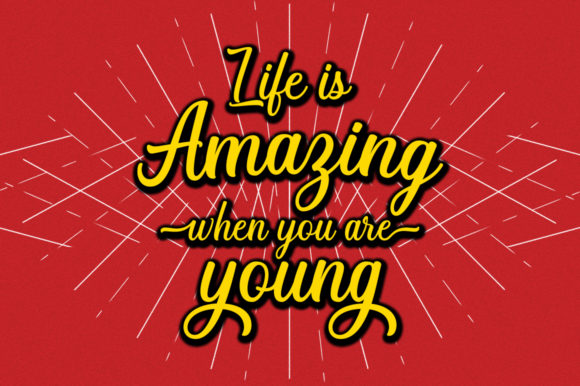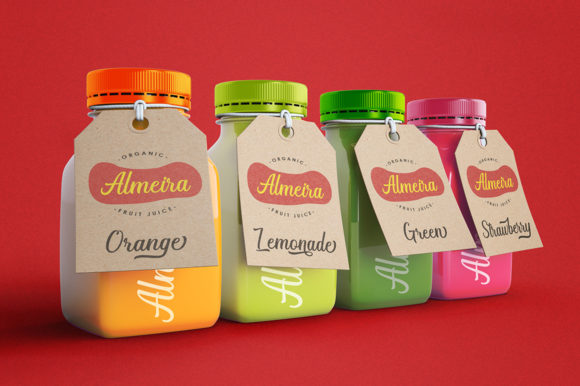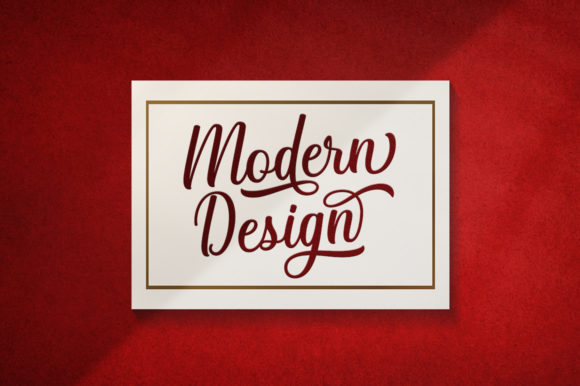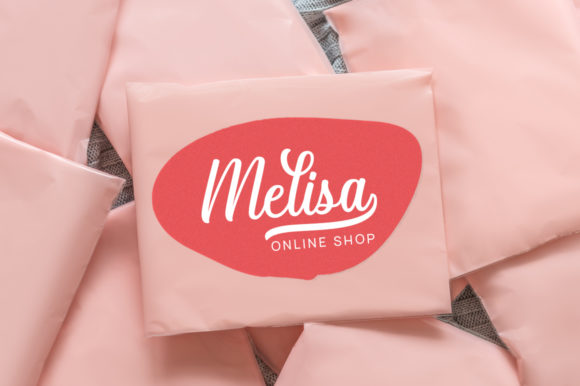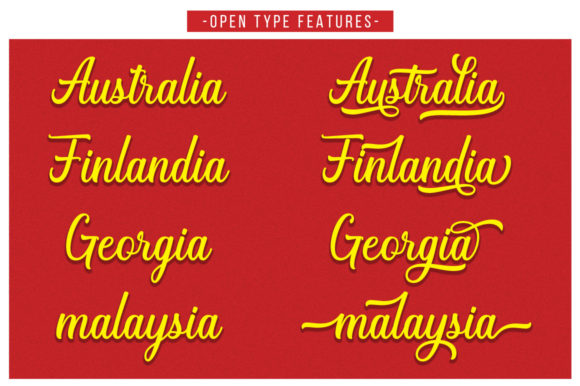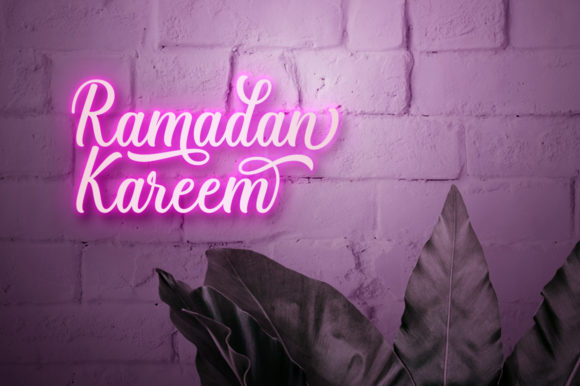
Introducing Greater Amberjack Font: Elevate Your Designs with Elegance and Friendliness
In the world of typography, a font can make or break a design project. If you’re a designer, crafty enthusiast, or simply someone who appreciates the art of beautiful lettering, you’re in luck! Greater Amberjack Font is a modern handwritten font that is taking the design world by storm. With its elegant look and friendly feel, this font is perfect for a wide range of projects, from branding and headings to wedding designs, invitations, signatures, logos, labels, and so much more!
The Characteristics of Greater Amberjack Font
So, what makes Greater Amberjack Font so special? For starters, its modern handwritten style gives it a fresh and contemporary look that’s perfect for designers who want to stay on-trend. The elegant feel of this font makes it ideal for projects that require a touch of sophistication, while its friendly vibe ensures that it remains approachable and accessible.
Whether you’re working on a luxury brand identity, a wedding invitation, or a personal craft project, Greater Amberjack Font is sure to elevate your design to the highest level. Its versatility is unmatched, and its unique character set ensures that your designs will stand out from the crowd.
Uses for Greater Amberjack Font
Greater Amberjack Font is a true workhorse, and its uses are endless. Here are just a few ideas to get you started:
- Branding: Create a lasting impression with a custom logo or brand identity that showcases your unique personality and style.
- Wedding Designs: Make your special day even more unforgettable with beautiful wedding invitations, programs, and decorations featuring Greater Amberjack Font.
- Headings and Titles: Add a touch of elegance to your blog posts, articles, and social media graphics with eye-catching headings and titles.
- Invitations and Cards: Create personalized invitations, greeting cards, and stationery that showcase your creativity and thoughtfulness.
- Signatures and Logos: Develop a unique signature style or logo that reflects your personality and brand identity.
- Labels and Packaging: Stand out on store shelves or online with custom labels and packaging that feature Greater Amberjack Font.
Why Choose Greater Amberjack Font?
With so many fonts to choose from, why should you choose Greater Amberjack Font? Here are just a few reasons:
- Unique and Modern: Greater Amberjack Font is a one-of-a-kind font that will set your designs apart from the crowd.
- Elegant and Friendly: This font combines sophistication with approachability, making it perfect for a wide range of projects.
- High-Quality: Greater Amberjack Font is designed with precision and attention to detail, ensuring that it looks amazing in any context.
If you’re looking for a font that will elevate your designs to the highest level, look no further than Greater Amberjack Font. With its modern handwritten style, elegant look, and friendly feel, this font is perfect for designers, crafty enthusiasts, and anyone who appreciates the art of beautiful lettering. Whether you’re working on a branding project, a wedding design, or simply a personal craft project, Greater Amberjack Font is sure to inspire and delight.